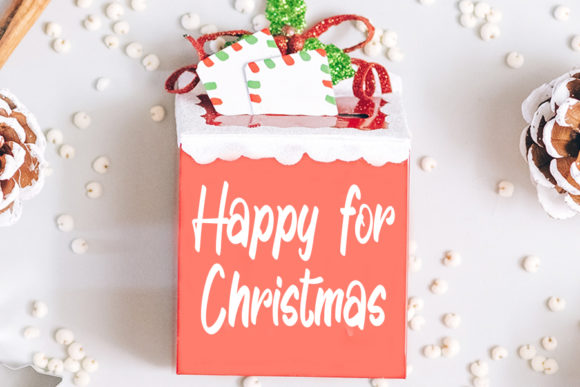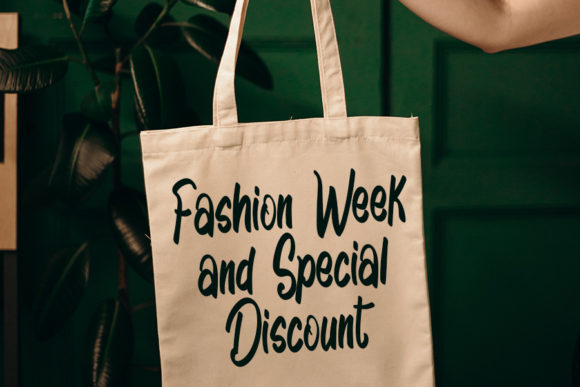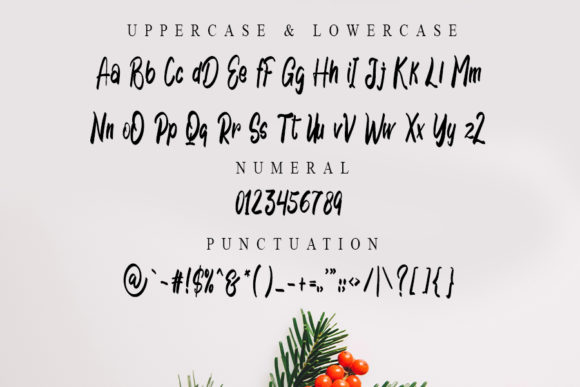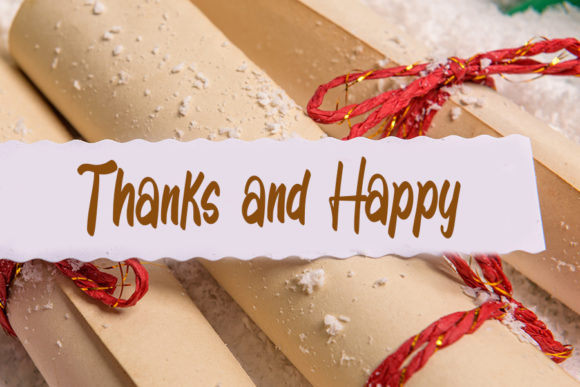
Great in December Font
About Great in December Font
Great In December is a cursive and joyful handwritten font. It looks beautiful on a variety of designs requiring a personalized style, such as wedding invitations, thank you cards, weddings, greeting cards, logos and so on.